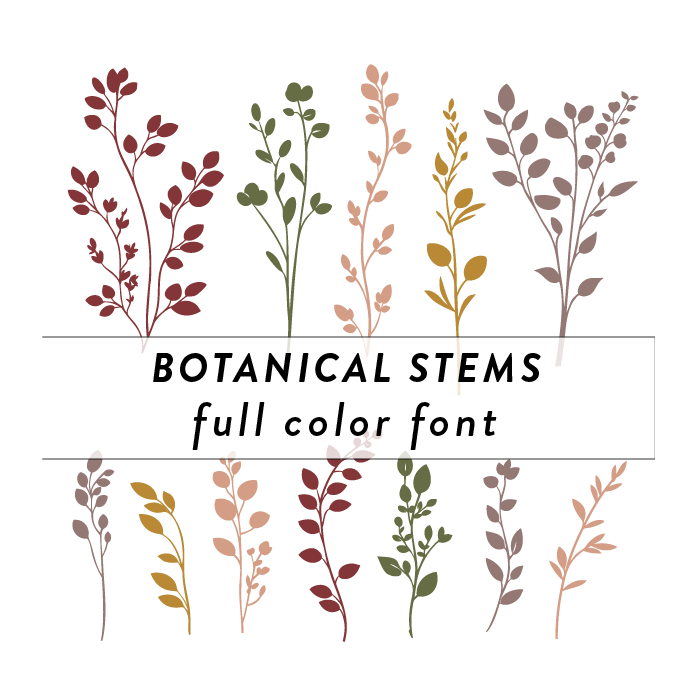
For a limited time, get this craft font free with any purchase of another design from my shop! Botanical Stems Full Color Font is a unique decorative font design featuring intricate darling branches, leaves, and flowers. The design is vibrant and detailed, adding a touch of nature to any project. Perfect for creating eye-catching designs with a botanical theme.